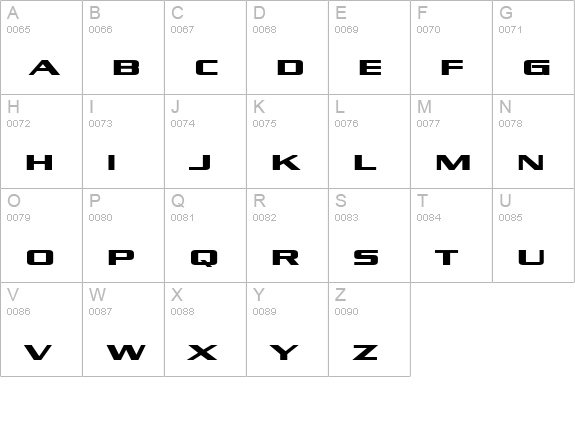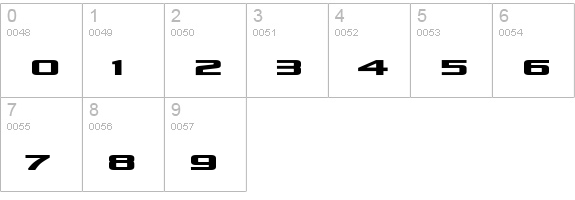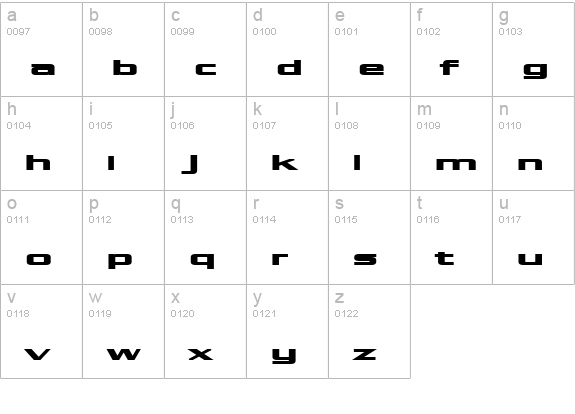
Kubra_Bold Font Details
Introducing Kubra Bold font, a striking and versatile typeface that exudes confidence and modernity. With its bold lines and strong presence, Kubra Bold is perfect for making a statement in headlines, posters, logos, and branding projects. This font combines a classic elegance with a contemporary twist, making it suitable for a wide range of design applications. What sets Kubra Bold apart is not just its boldness, but also its versatility. Whether you're looking to create a powerful headline or a sleek logo, this font has you covered. Its clean and crisp letterforms make it highly readable, ensuring that your message is conveyed effectively. The best part? Kubra Bold is available for free download at FontsMarket.com. Now you can elevate your designs without breaking the bank. Don't miss out on this opportunity to add a touch of bold sophistication to your projects with Kubra Bold font. Download it today and let your creativity shine!